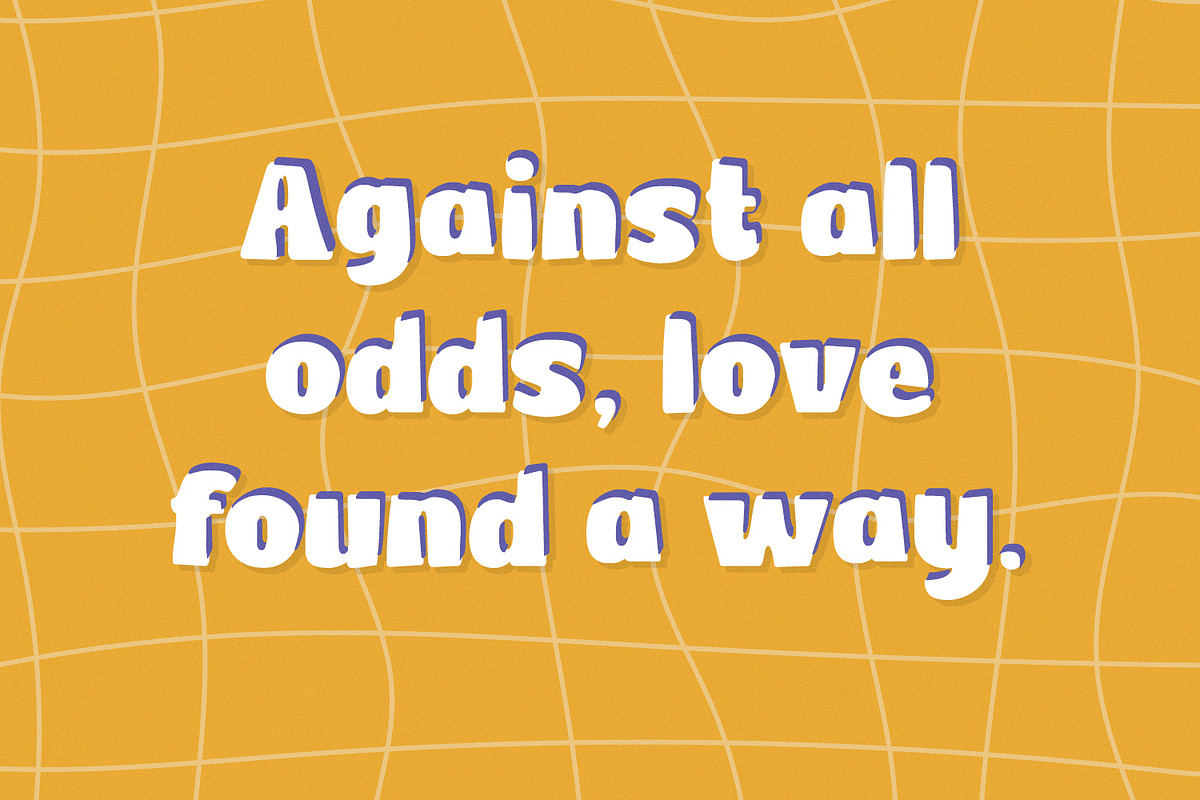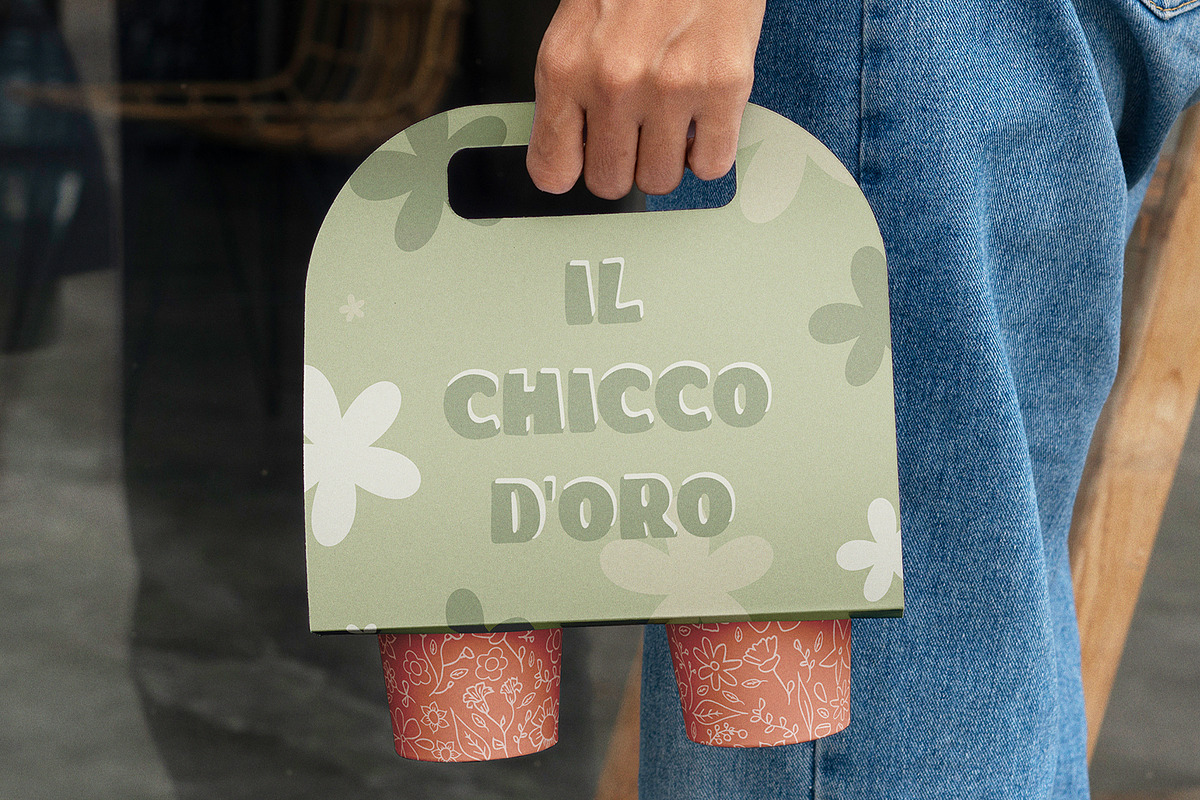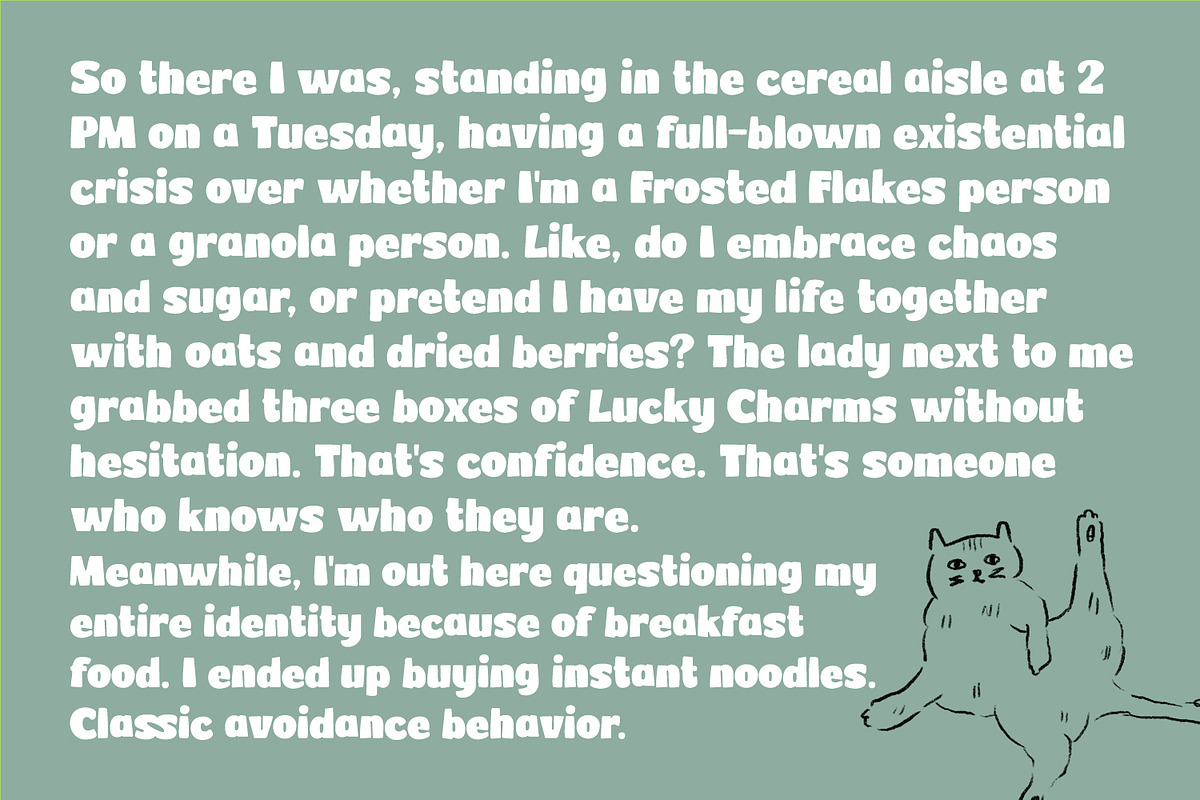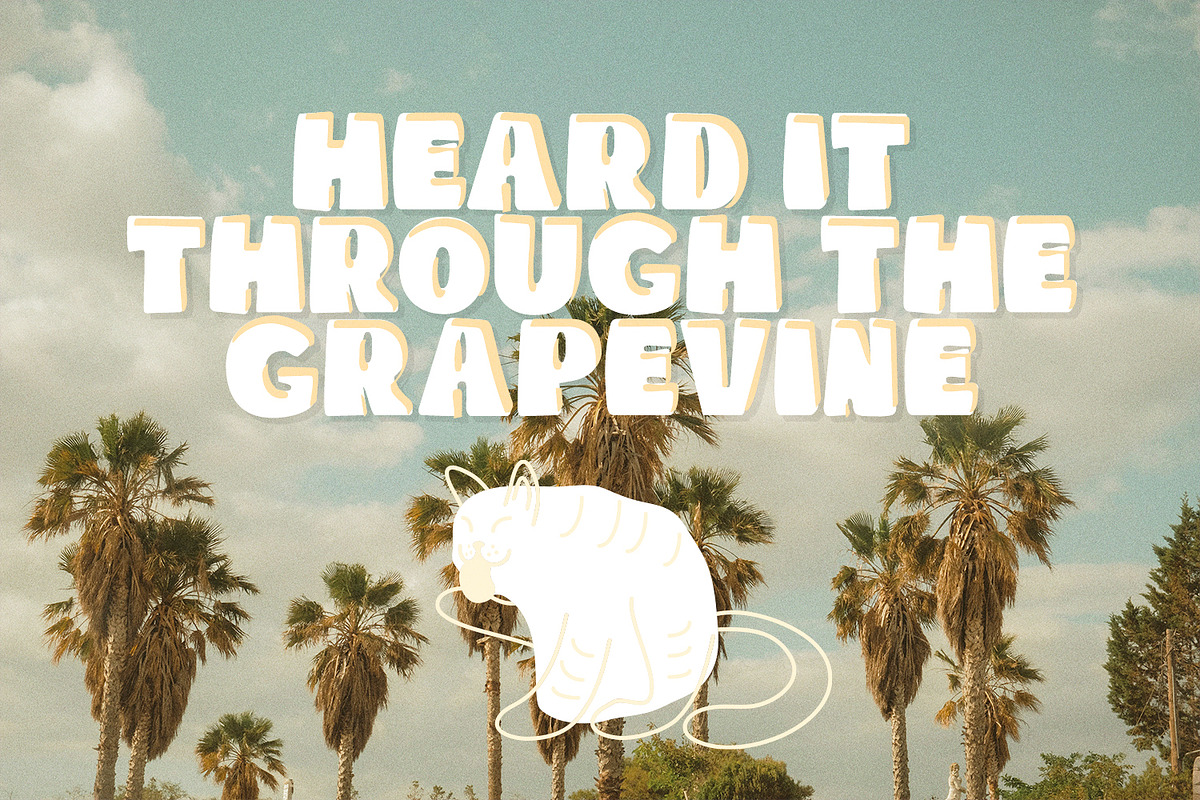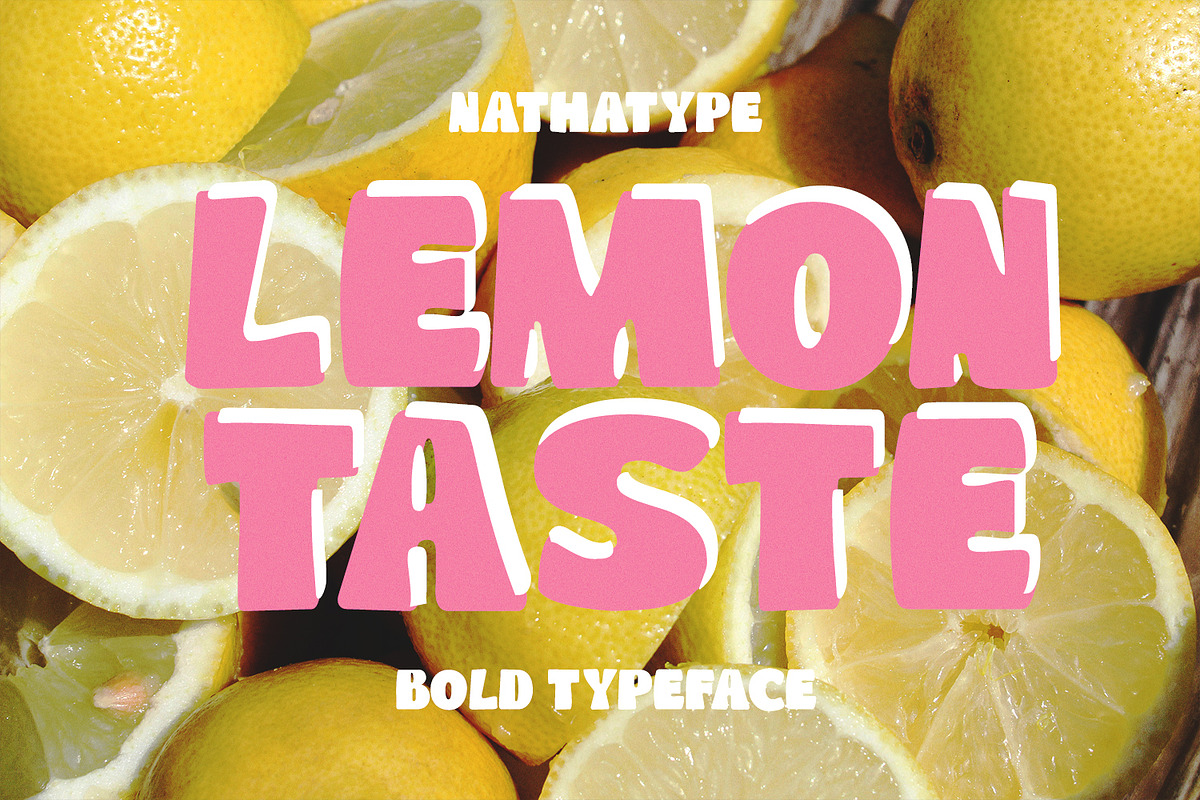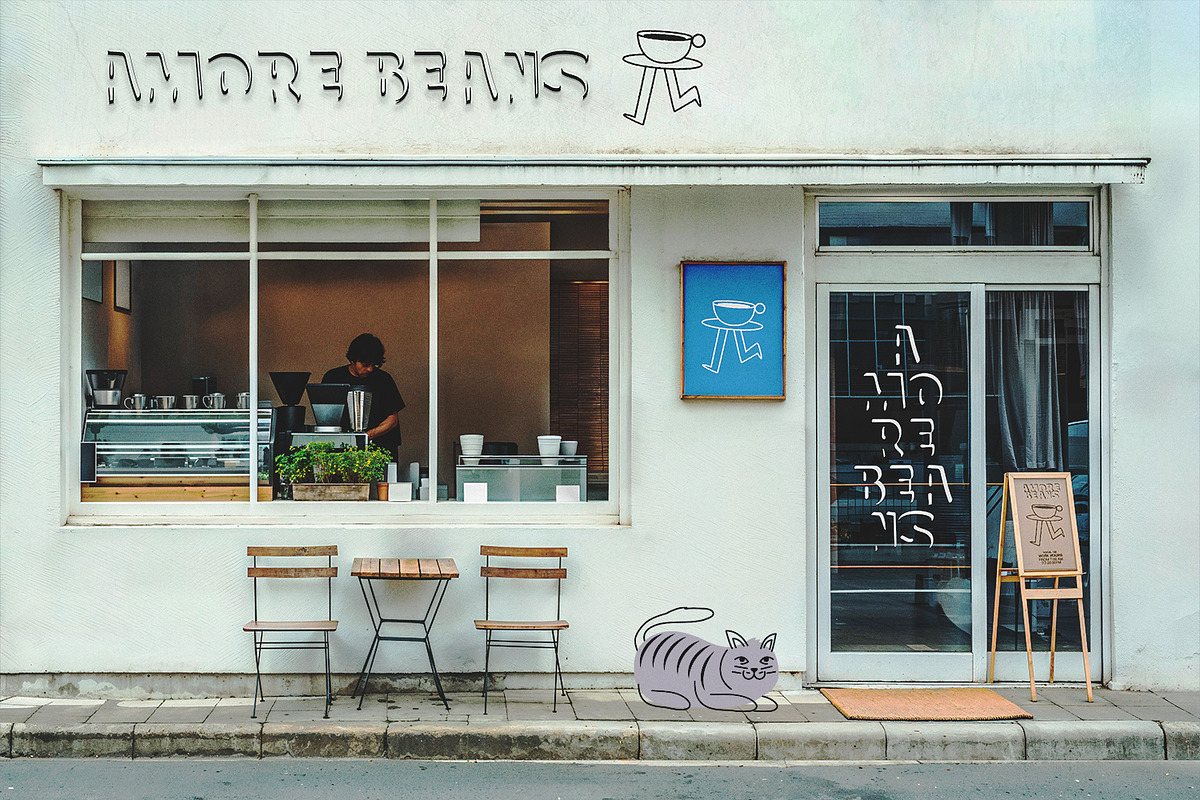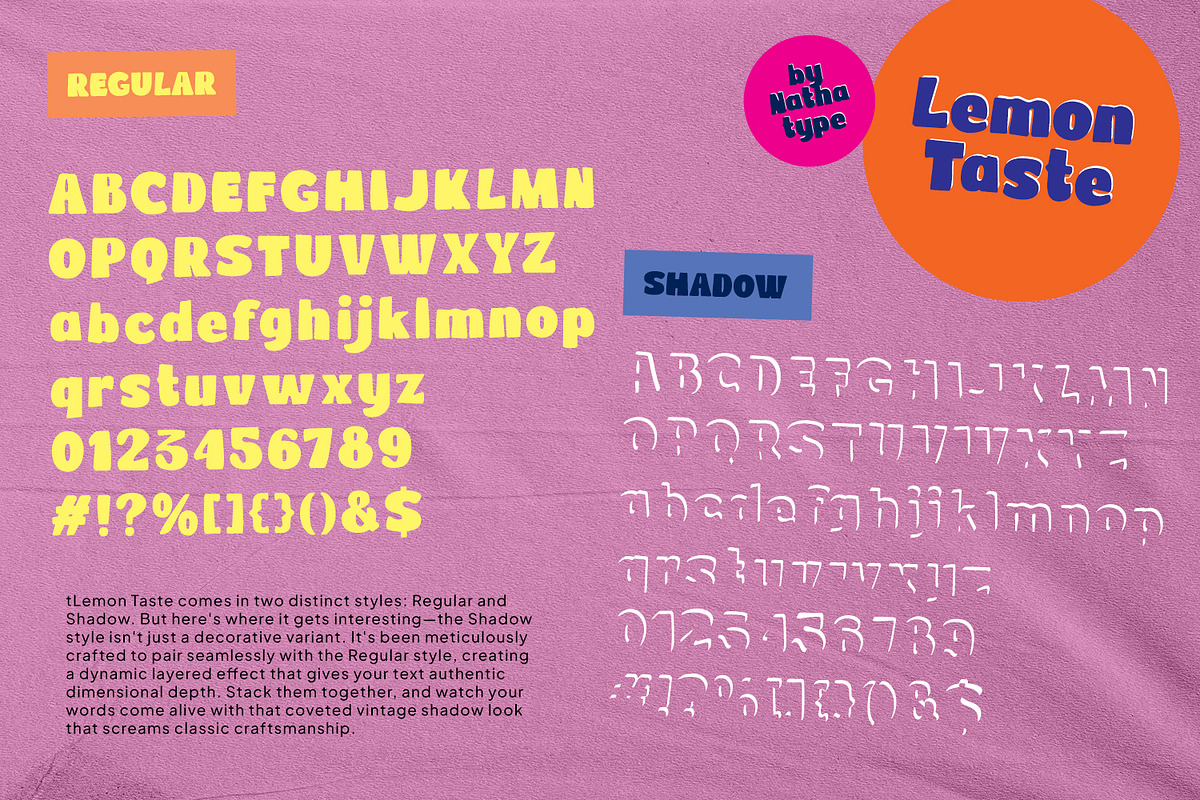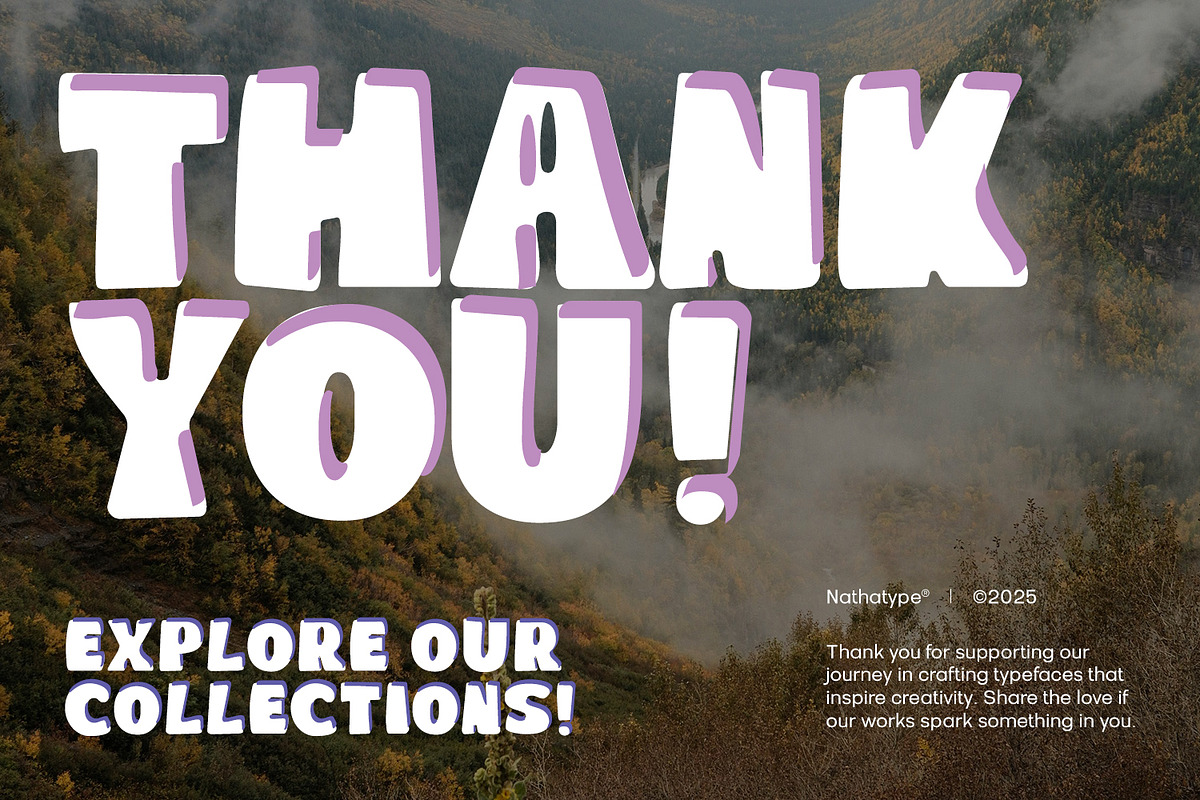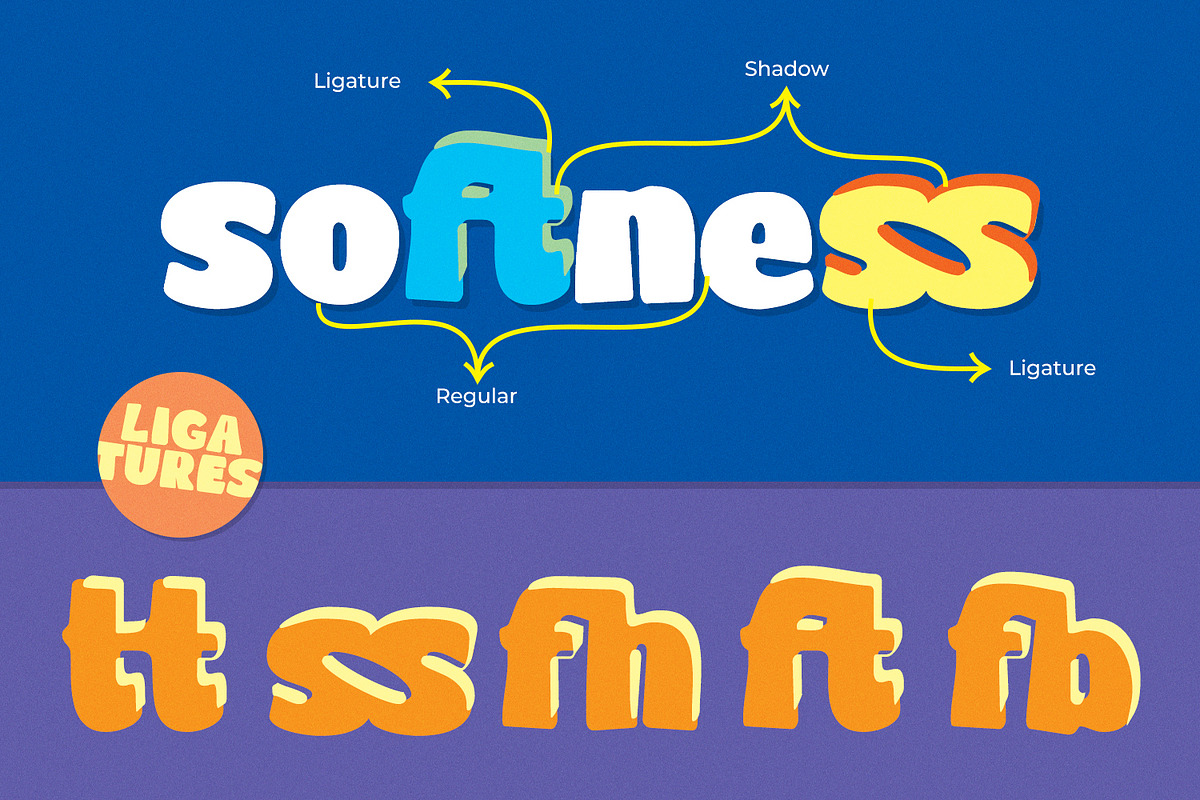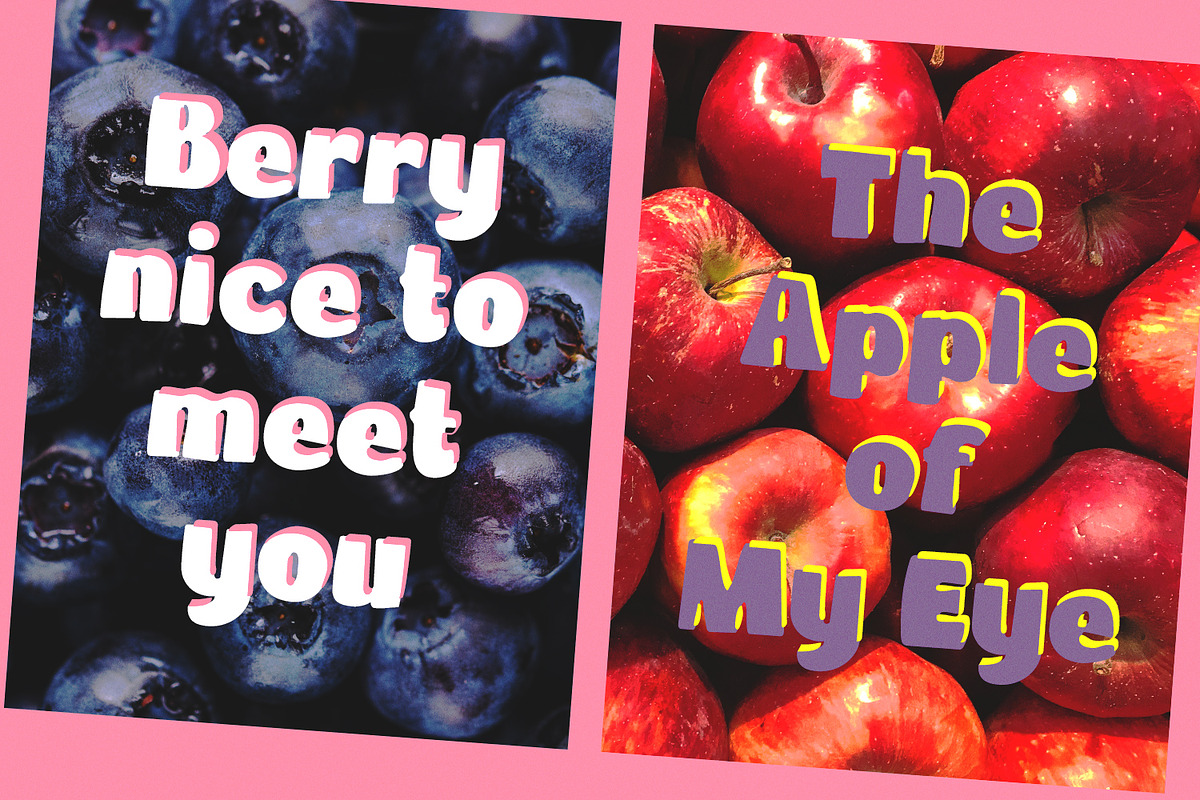
Lemon Taste
Lemon Taste is a fun and eye-catching display font. Its thick, soft letterforms create an instantly recognizable style that feels cheerful, approachable, and full of personality. Crafted for bold typography lovers, Lemon Taste combines strength and softness in one cohesive design. The low contrast strokes ensure consistency and clarity, while the rounded edges give the font a playful, welcoming tone. In addition, enjoy the features here.
Lemon Taste fits in logos, quotes, branding, posters, and many more designs. Find out more ways to use this font by taking a look at the font preview.